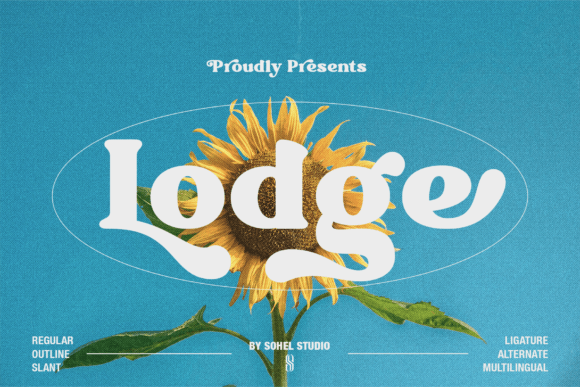
Introducing Lodge Font, the perfect choice for those seeking the best fonts to use for a poster! Crafted by the talented team at Sohel Studio, this serif font is designed to transport you back to the captivating aesthetics of the 1970s. Get ready to infuse your designs with a touch of nostalgia and create truly remarkable projects.
Why settle for ordinary when you can embrace the extraordinary? Lodge Font offers a unique typography experience that is both eye-catching and emotionally captivating. Its retro charm and chunky serifs immediately command attention, making it the ideal choice for print materials, display graphics, and editorial layouts.
Let your creativity run wild as you explore the endless possibilities this font has to offer. Its timeless appeal brings a sense of elegance, making it suitable for a wide range of design projects. Whether you're aiming for a vintage-inspired poster, an attention-grabbing magazine cover, or a visually stunning logo, Lodge Font will effortlessly elevate your creations to new heights.
But what truly sets Lodge Font apart is its ability to evoke emotions. With just a glance, it transports your audience to a bygone era filled with warmth, nostalgia, and a sense of wonder. It sparks a connection that goes beyond mere visual appeal, truly engaging your viewers and leaving a lasting impression.